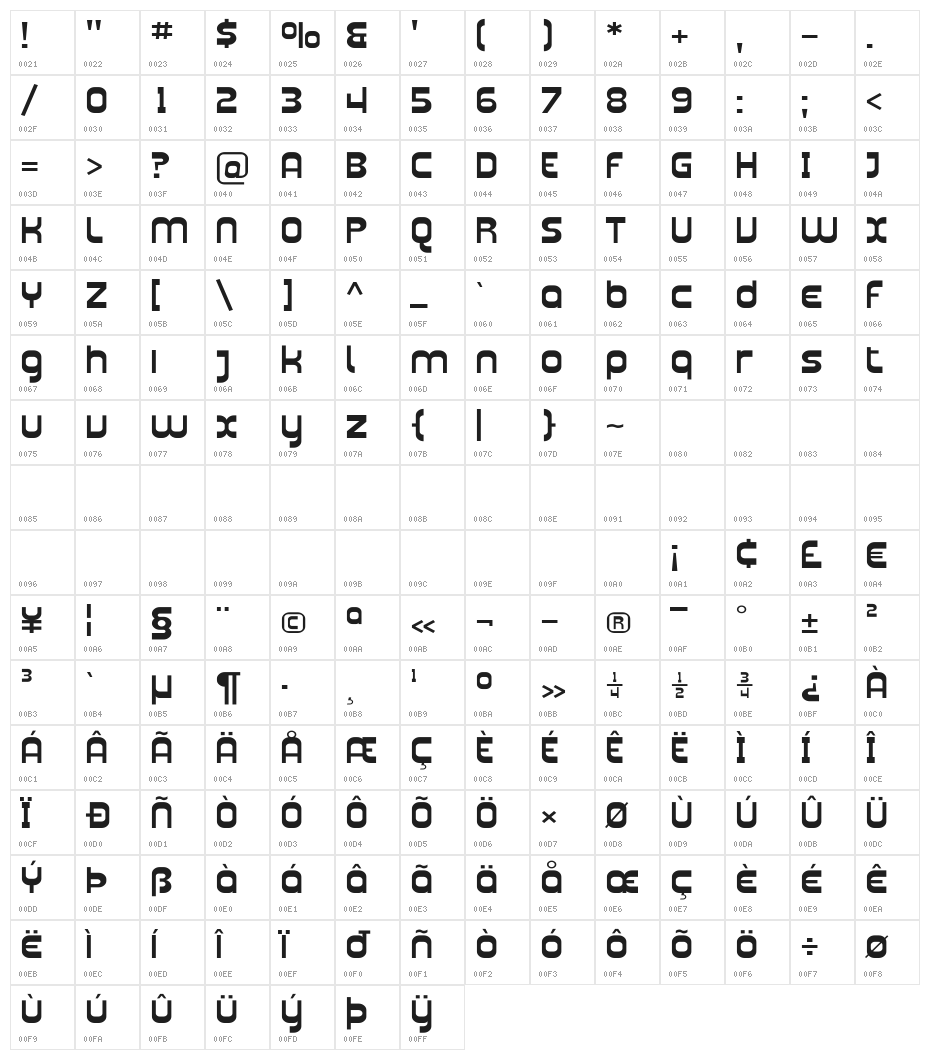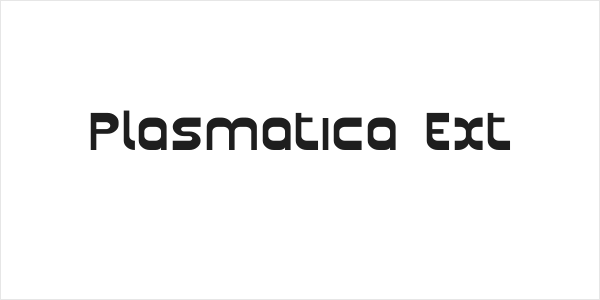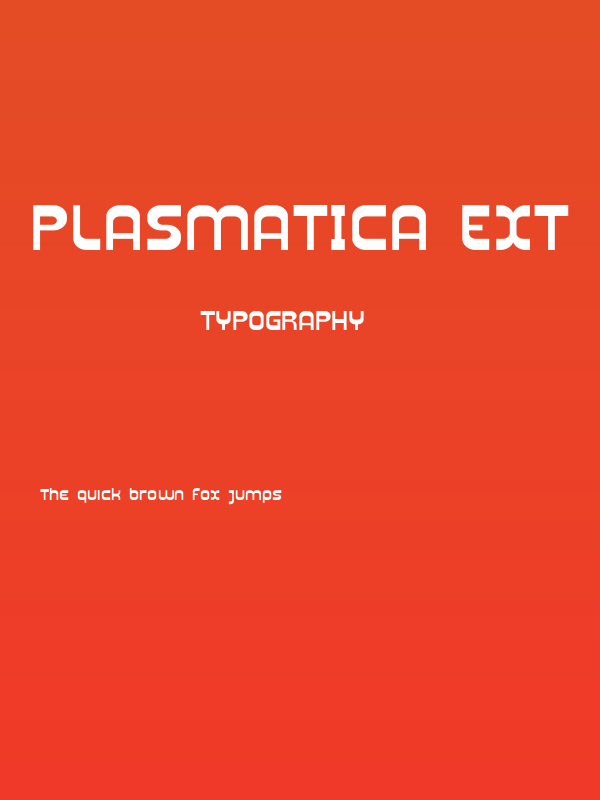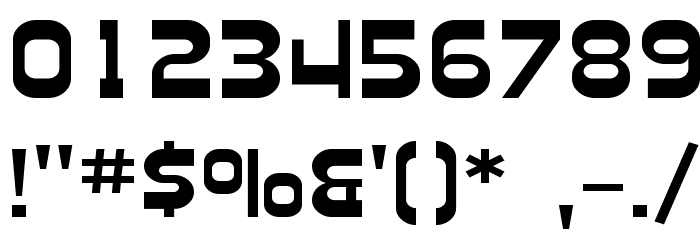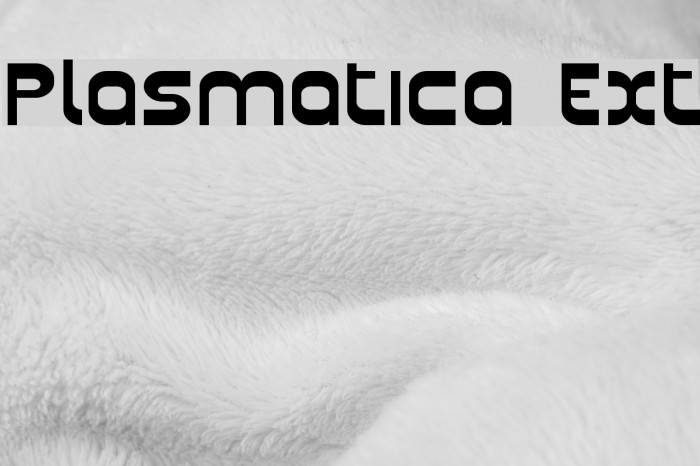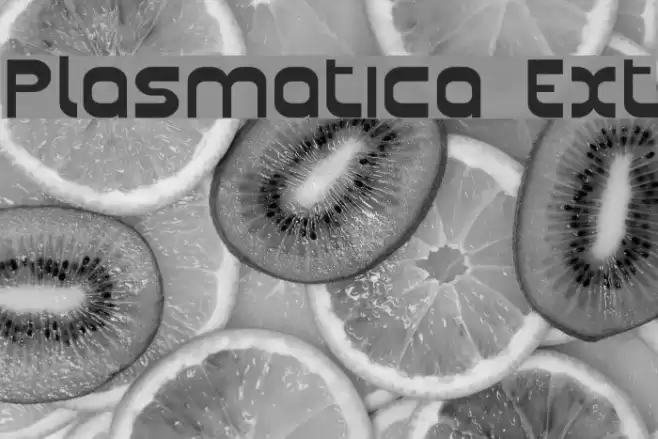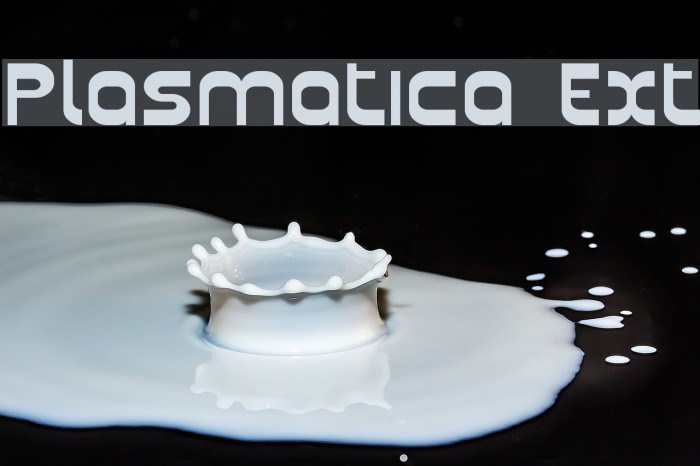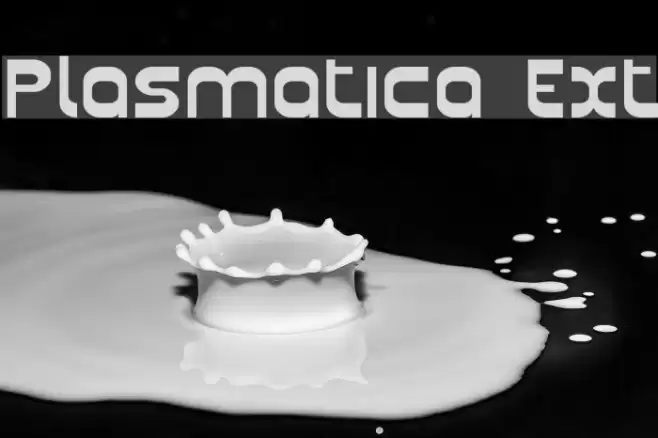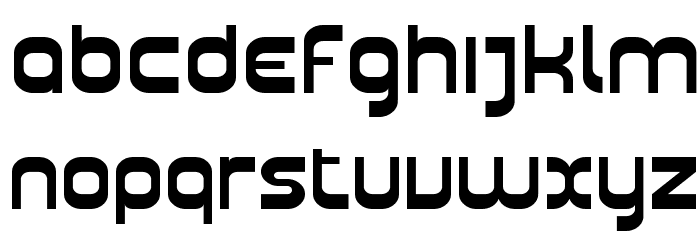
Plasmatica Ext Font
Plasmatica Ext Description
This font features a bold and futuristic design with geometric shapes and smooth curves. The characters are uniformly thick, giving it a strong presence. The uppercase letters are distinct with rounded edges, while the lowercase letters maintain a consistent style, enhancing readability. The numerals are clear and bold, matching the overall aesthetic. Special characters are designed to complement the font's modern look, making it suitable for digital and print media.
| Use Case | Headlines, Logos, Digital media |
| Proposed Projects | Ideal for technology branding, sci-fi posters, video game titles, and modern advertising. |